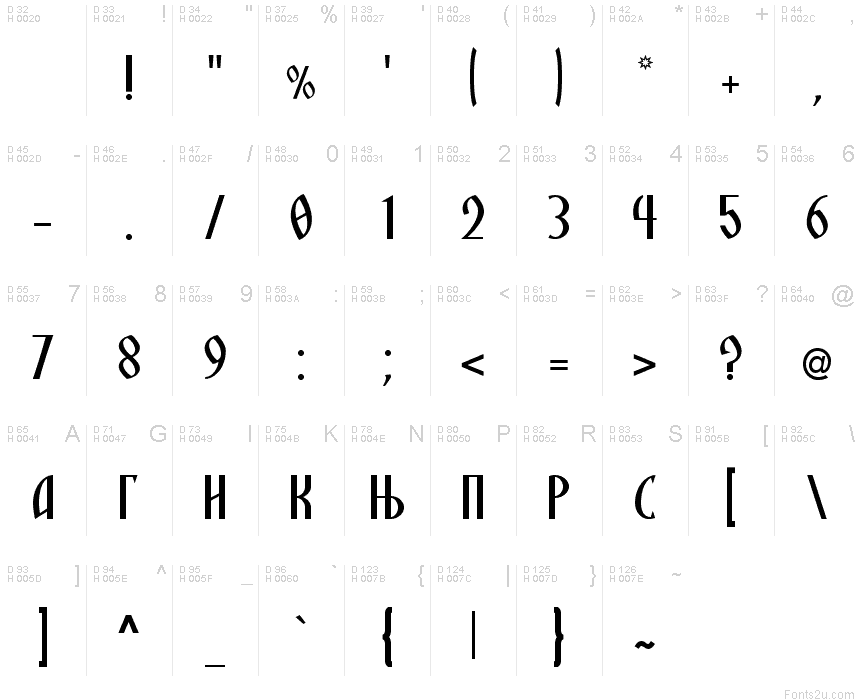
Srpska Kniga 1, by Nikola Kovanovic, is a free medieval Cyrillic caps font with a solemn, bookish presence. The letters feel carved and ceremonial, with tall narrow forms, sharp wedge-like strokes, and dramatic curves that echo old Slavic inscriptions more than modern display lettering.
It fits naturally in posters for cultural events, book covers, museum graphics, folk music releases, and title cards that need an Orthodox or historic Serbian mood. As a free font, it also works well for short headlines, monograms, and drop caps, where those severe curves and pointed finishes give even a few letters the weight of an emblem.